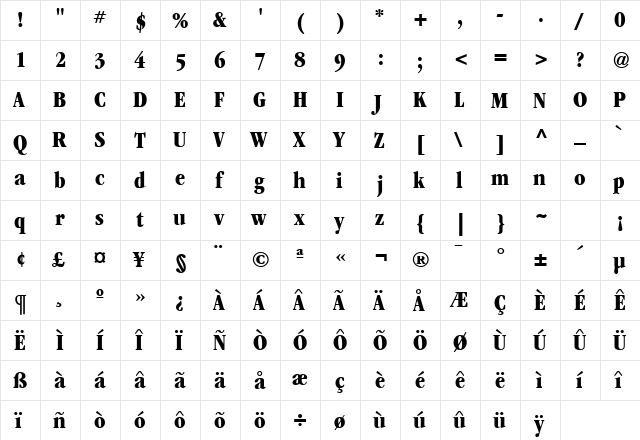
GarryMondrianCond7 ExtraBoldSH
GarryMondrianCond7 is a composed and adaptable typeface that performs quietly and consistently across a wide range of design contexts. Its bold stroke weight gives it real presence on the page. The condensed width makes it efficient for tight spaces without sacrificing legibility.